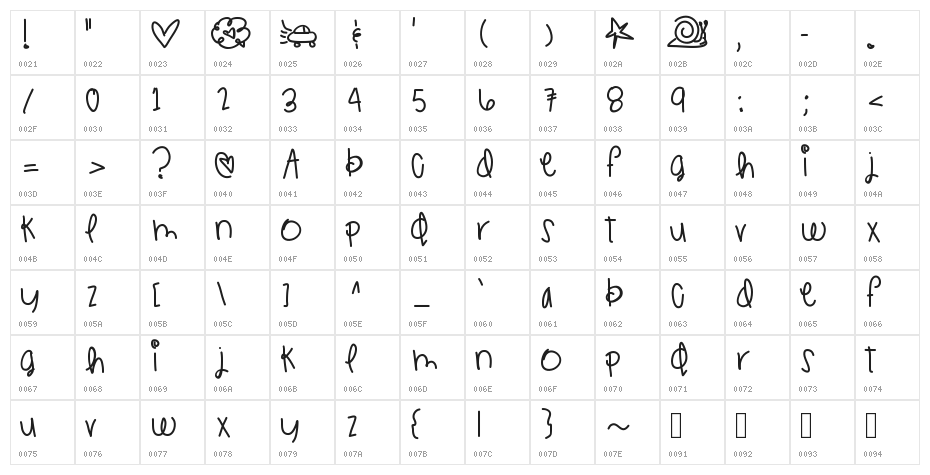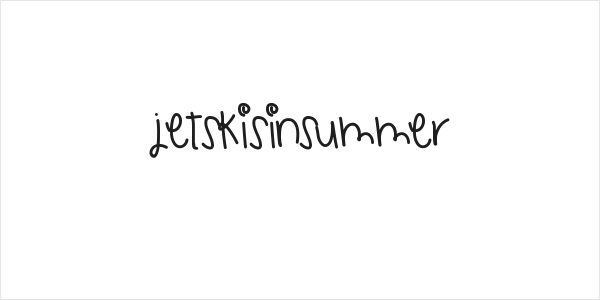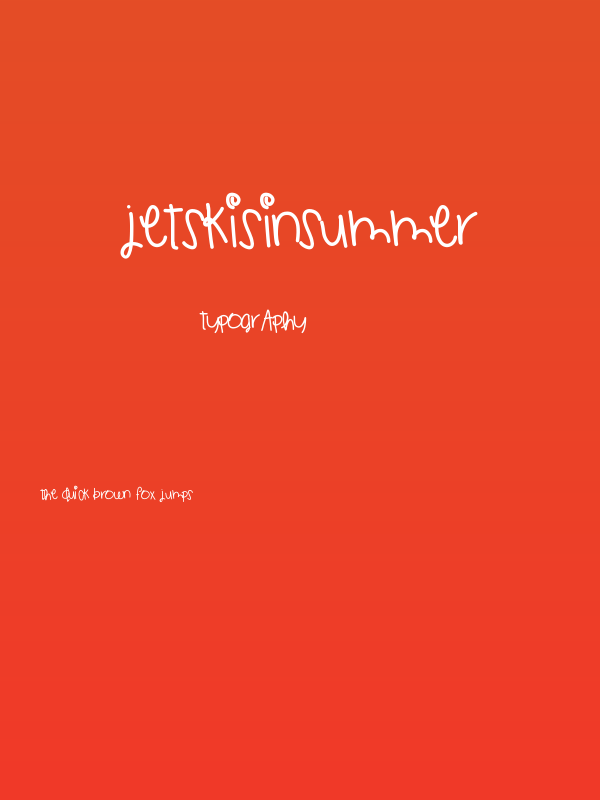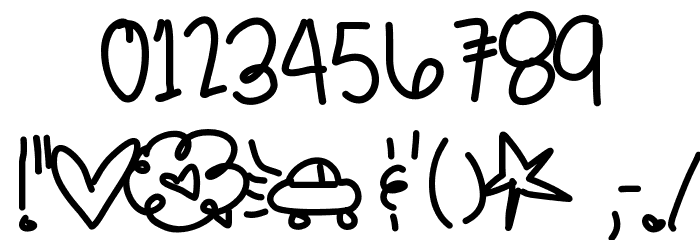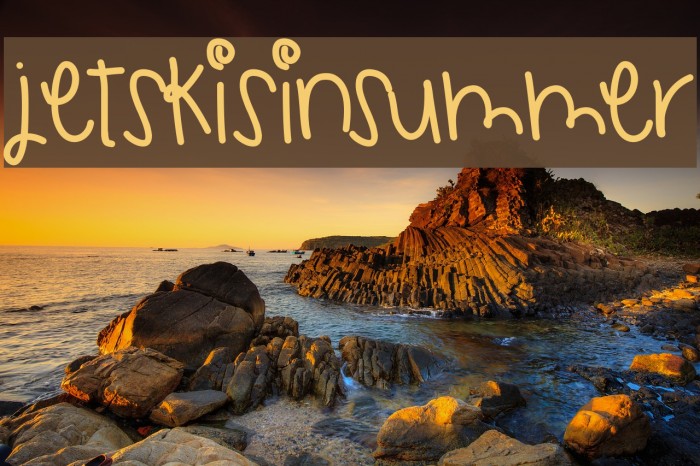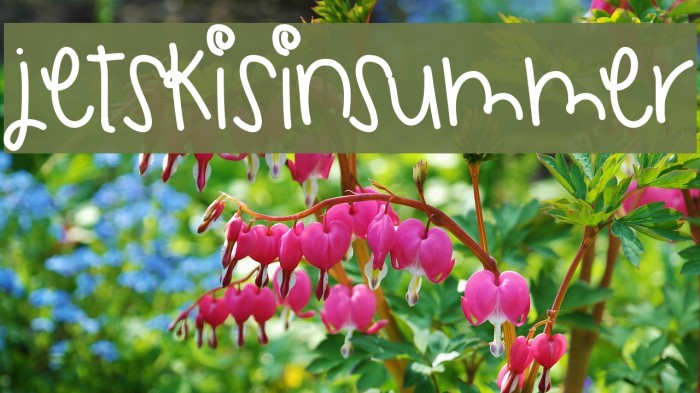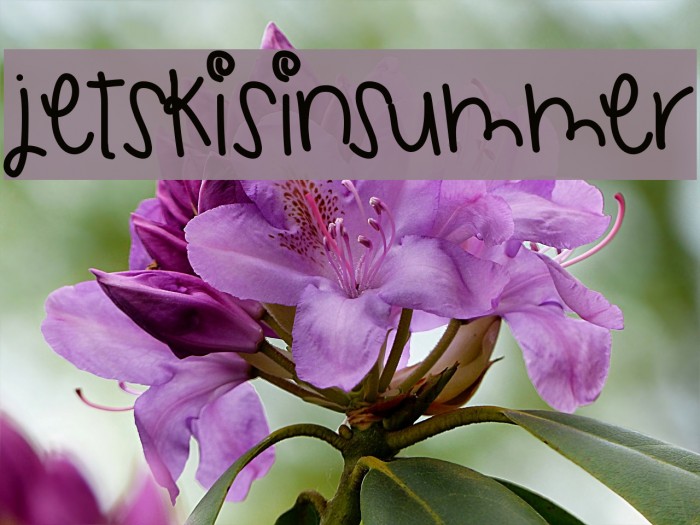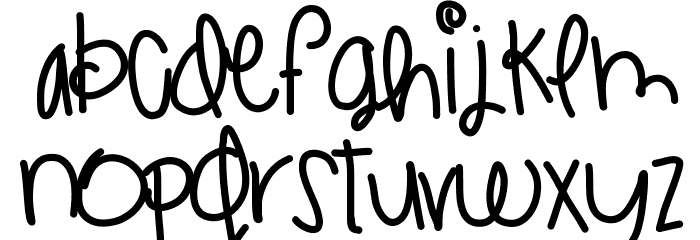
JetskisInSummer Font
JetskisInSummer Description
This playful handwritten font features a casual and whimsical style, characterized by its flowing, rounded letterforms and a slightly irregular baseline that adds a sense of movement and energy. The uppercase and lowercase letters are distinct yet harmoniously balanced, with a consistent stroke width that maintains readability. The numerals and special characters complement the alphabet with their quirky and fun design, making this font ideal for projects that require a personal touch. Its informal appearance is perfect for creative and artistic endeavors, adding a friendly and approachable vibe.
| Proposed Projects | Ideal for greeting cards, children's books, playful branding, and social media graphics. |